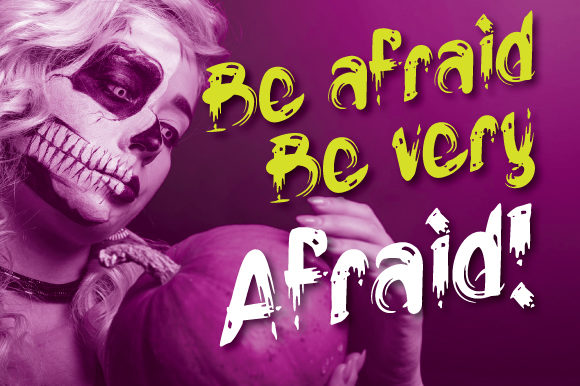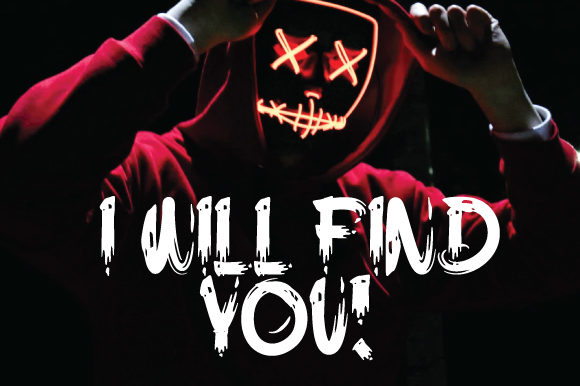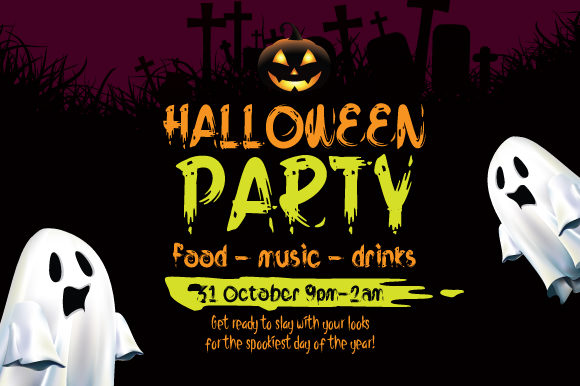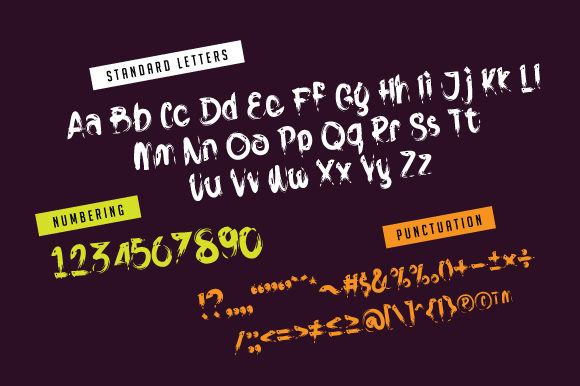
Get Ready to Cast a Spell with Broomstick Font
As designers, we’ve all been there – staring at a blank canvas, desperately searching for the perfect font to bring our creative vision to life. The night before Halloween, you’re tasked with creating a spooky poster, but nothing seems to be striking the right chord. That’s when the perfect storm of inspiration hits – a flickering jack-o-lantern, a creaking tree branch, and a hint of magic in the air.
Enter Broomstick Font, a masterfully designed display font that will transport your designs to a world of enchantment. This unique font is specifically crafted to elevate your Halloween-themed ideas, from eerie invitations to bewitching advertisements. With Broomstick Font, you’ll be able to tap into the magic of the season and create truly spellbinding content that will leave a lasting impression.
Broomstick Font Key Features
- Font Family: Broomstick is a unique, handwritten font designed to resemble a child’s scribbles on a chalkboard.
- Character Set: Includes a wide range of characters, including uppercase and lowercase letters, numbers, punctuation marks, and special characters.
- Unique Characteristics: Broomstick Font features a playful, childlike quality, with varying line widths, irregular shapes, and a sense of movement, making it perfect for creative and whimsical designs.
Broomstick Font Review
Overall, I think the Broomstick Font is a solid addition to any designer’s toolkit. Here are some things that stand out to me:
- ✨ Unique aesthetic: The font’s whimsical, hand-drawn feel is perfect for projects that need a touch of magic or nostalgia.
- ✨ Versatility: Broomstick Font works well in a variety of contexts, from children’s books to advertising campaigns.
- ⚠️ Limited language support: Broomstick Font is only available in a few languages, which may limit its use in international projects.
- ⚠️ Not ideal for small text: The font’s playful feel can make it difficult to read in small sizes or at a distance.
Overall, I think the Broomstick Font is a great choice for designers who need a unique, eye-catching font for their projects. While it may have some limitations, its strengths make it a valuable addition to any design library.
For best results, use the Broomstick Font for headings and titles to create a whimsical and magical atmosphere.
For best results, use the Broomstick Font for illustrations and graphics that require a touch of fantasy and magic.
For best results, use the Broomstick Font for presentations and documents that require a playful and enchanting tone.
The Broomstick Font is ideal for:
- Magical and fantasy-themed projects.
- Children’s books and educational materials.
- Wedding invitations and party decorations.
- Whimsical and playful marketing campaigns.
Alternatives to Broomstick Font
Cream Soda is a playful, handwritten font perfect for creating whimsical and charming designs. It’s ideal for use in logos, invitations, and social media graphics where a casual, friendly tone is desired.
Compared to Broomstick Font, Cream Soda has a more rounded and elegant feel, making it suitable for a wider range of design applications.
Great Vibes is a beautiful, handwritten font that exudes a sense of sophistication and elegance. It’s perfect for use in luxury branding, packaging, and high-end advertising where a refined, premium feel is desired.
Unlike Broomstick Font, Great Vibes has a more refined and polished look, making it suitable for use in high-end design applications.